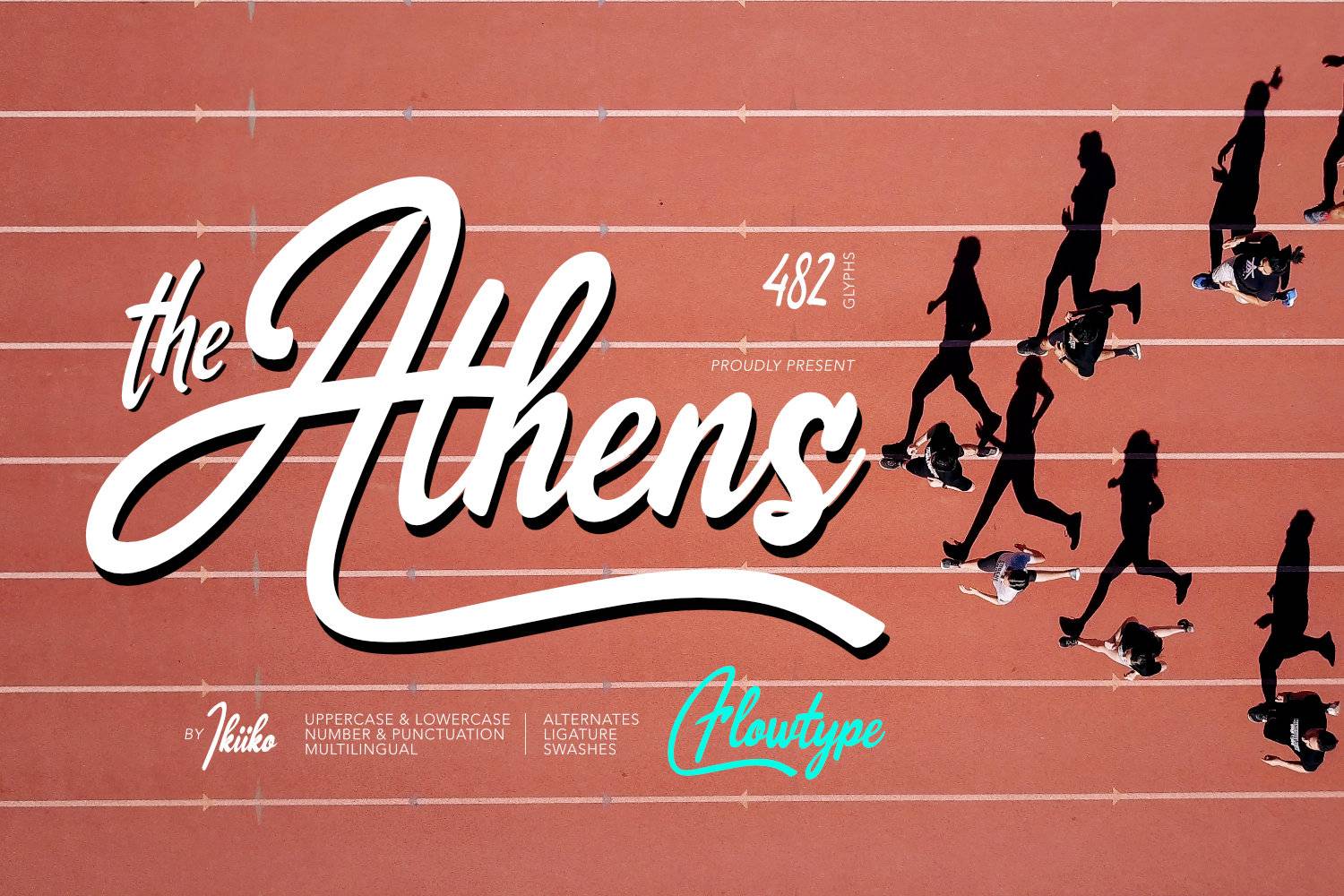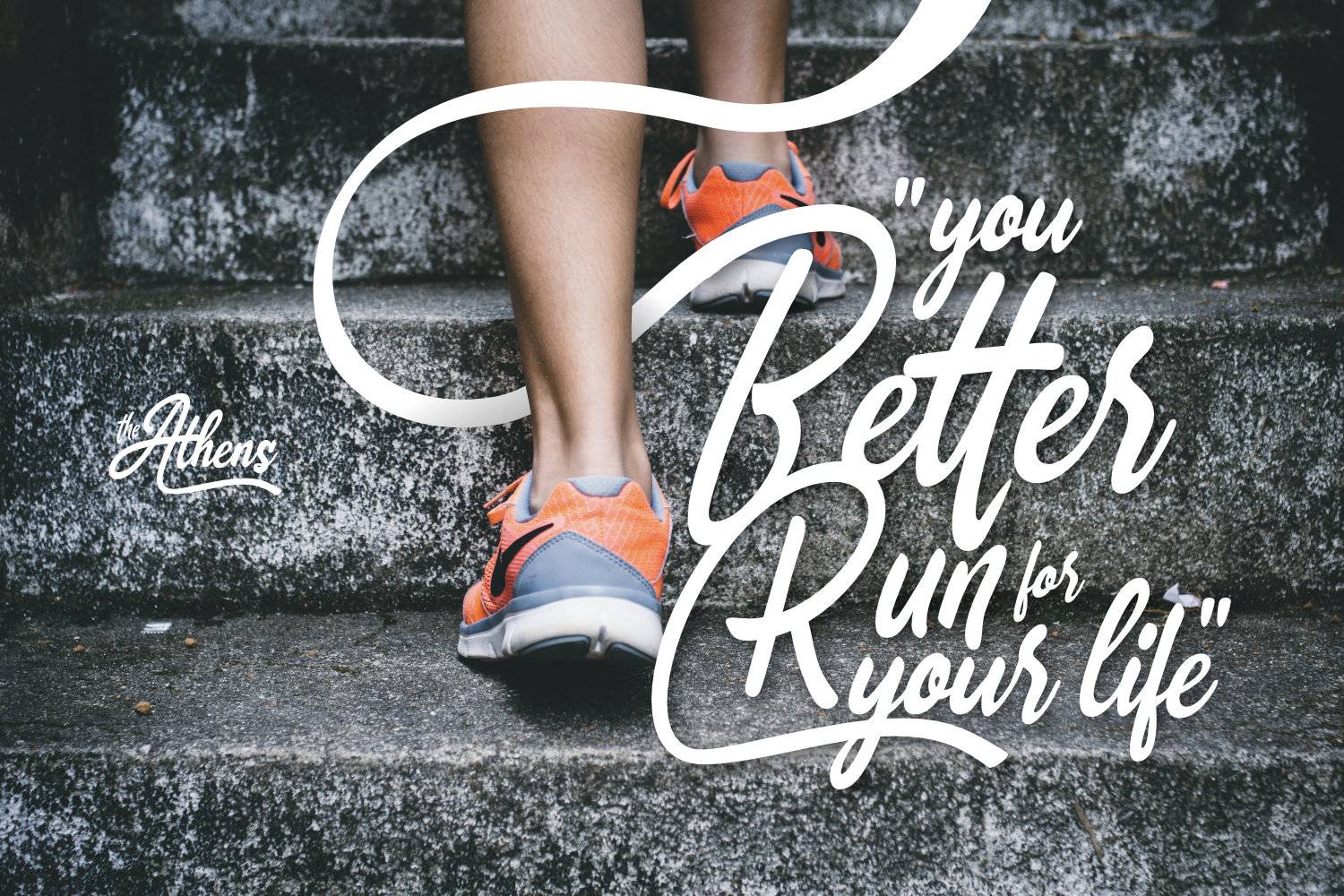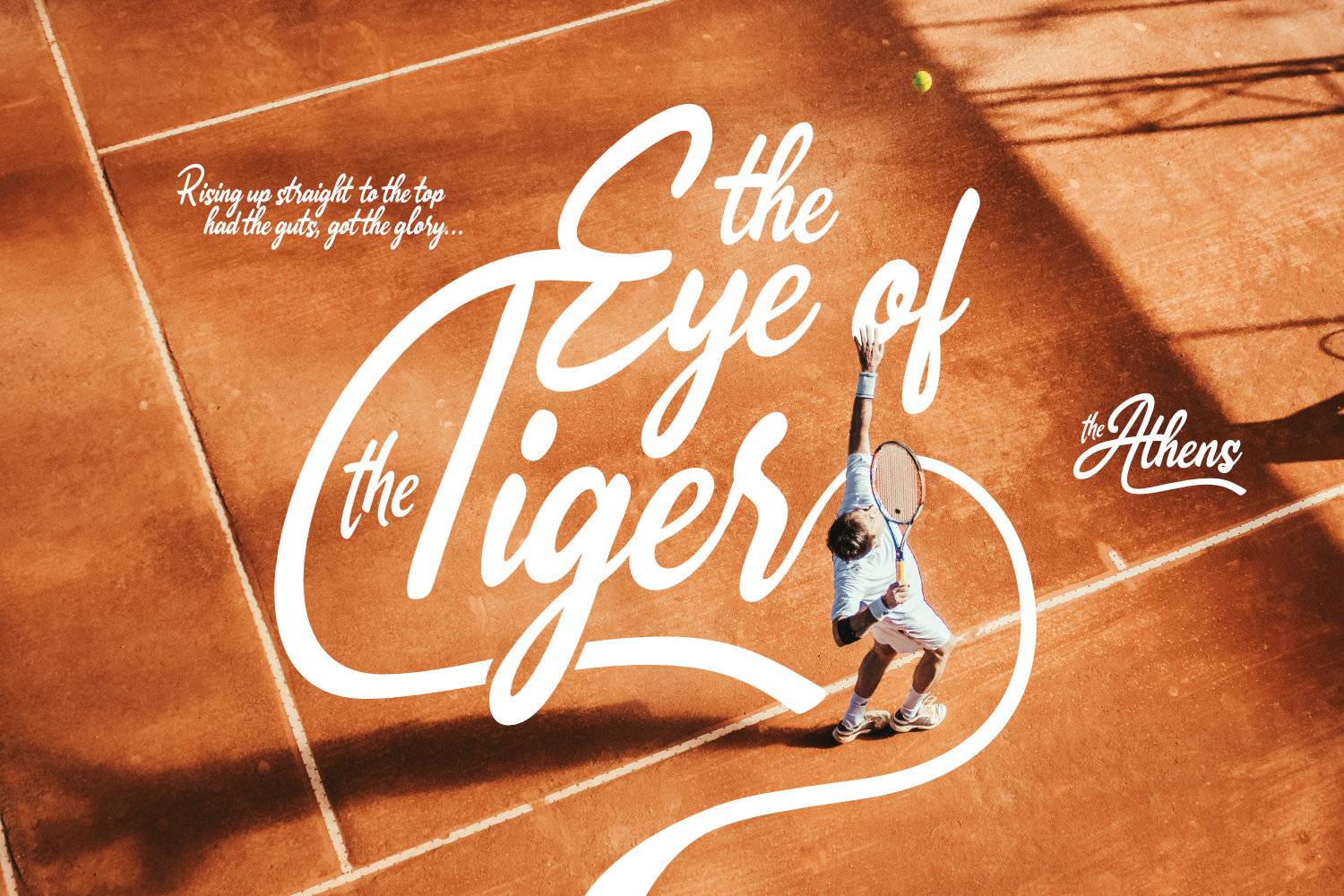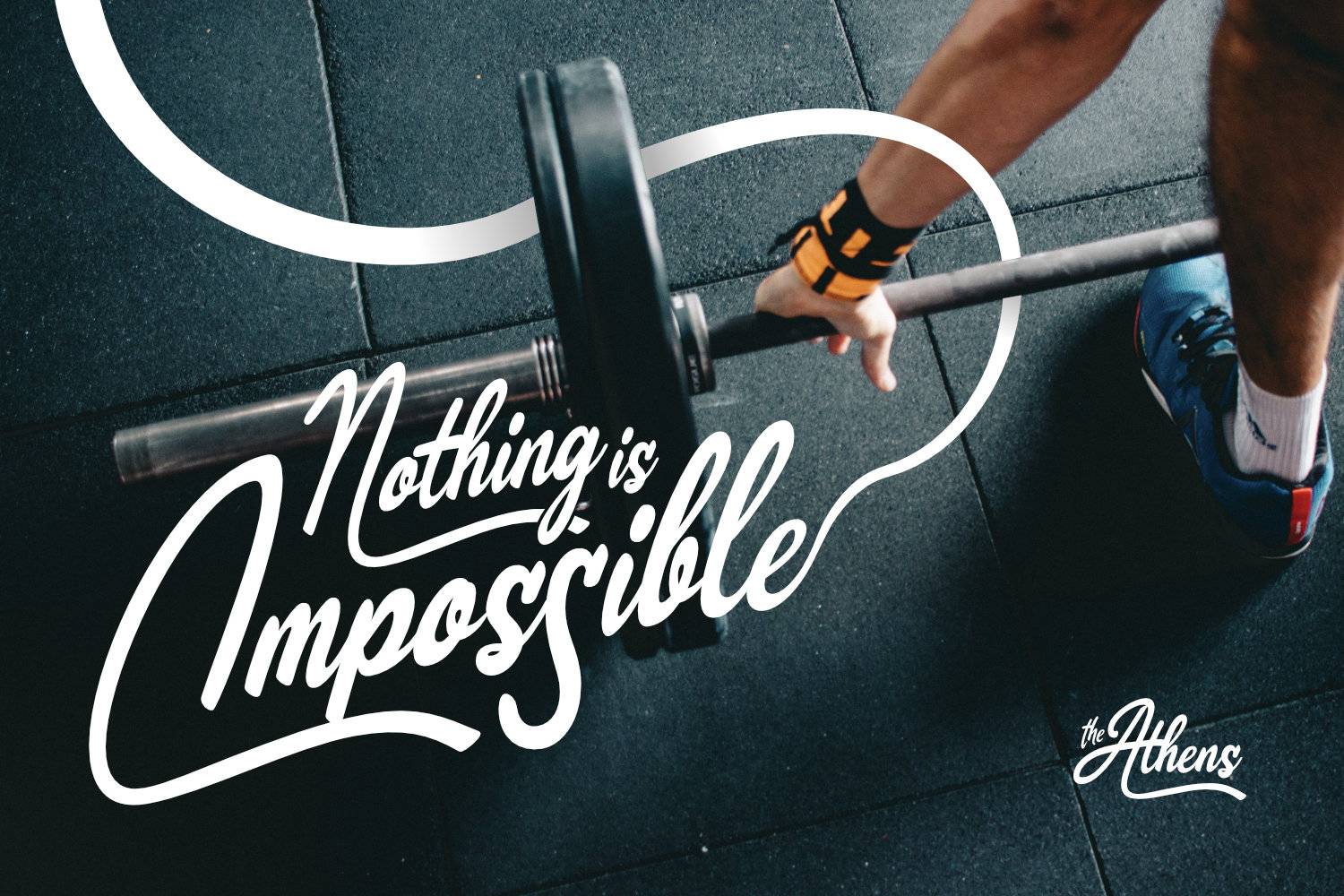
The Athens Font is an elegant script typeface with a smooth, flowing style that exudes a classic and refined personality. Its medium weight and slightly condensed letterforms, combined with fluid, connected strokes and distinct curls, make it perfect for branding, invitations, and stylish headlines where a touch of sophistication and warmth is desired. This font works beautifully in contexts that call for a graceful, approachable look with a handwritten charm.
The Athens Font
About The Athens Font
| Font family | The Athens Font |
| Designer | Wahyu Eka Prasetya, Andhika Pradana |